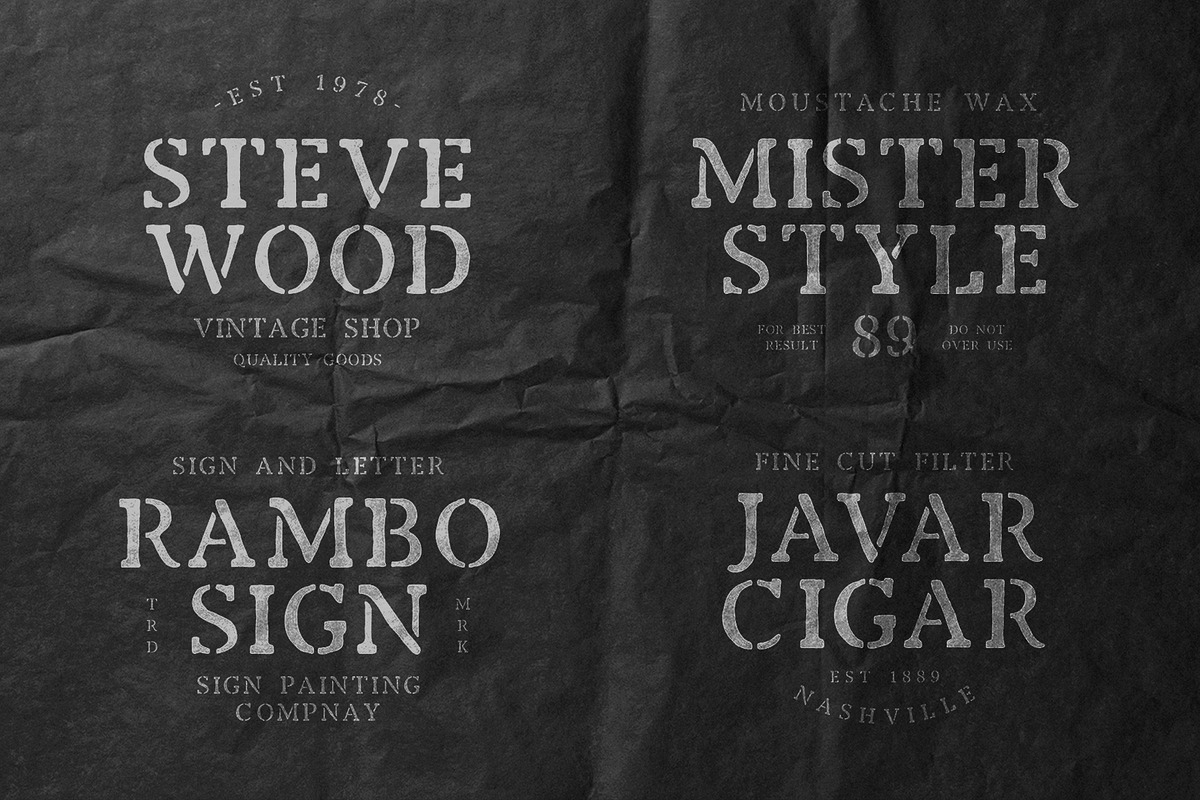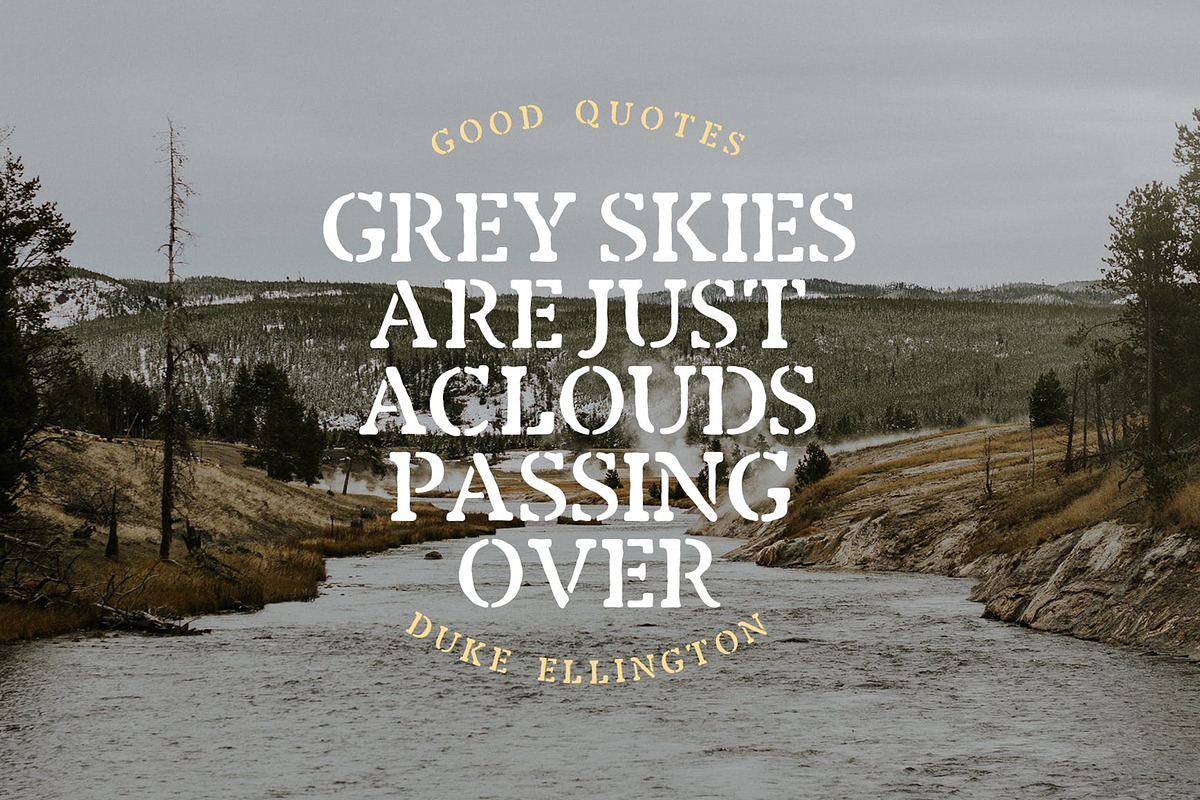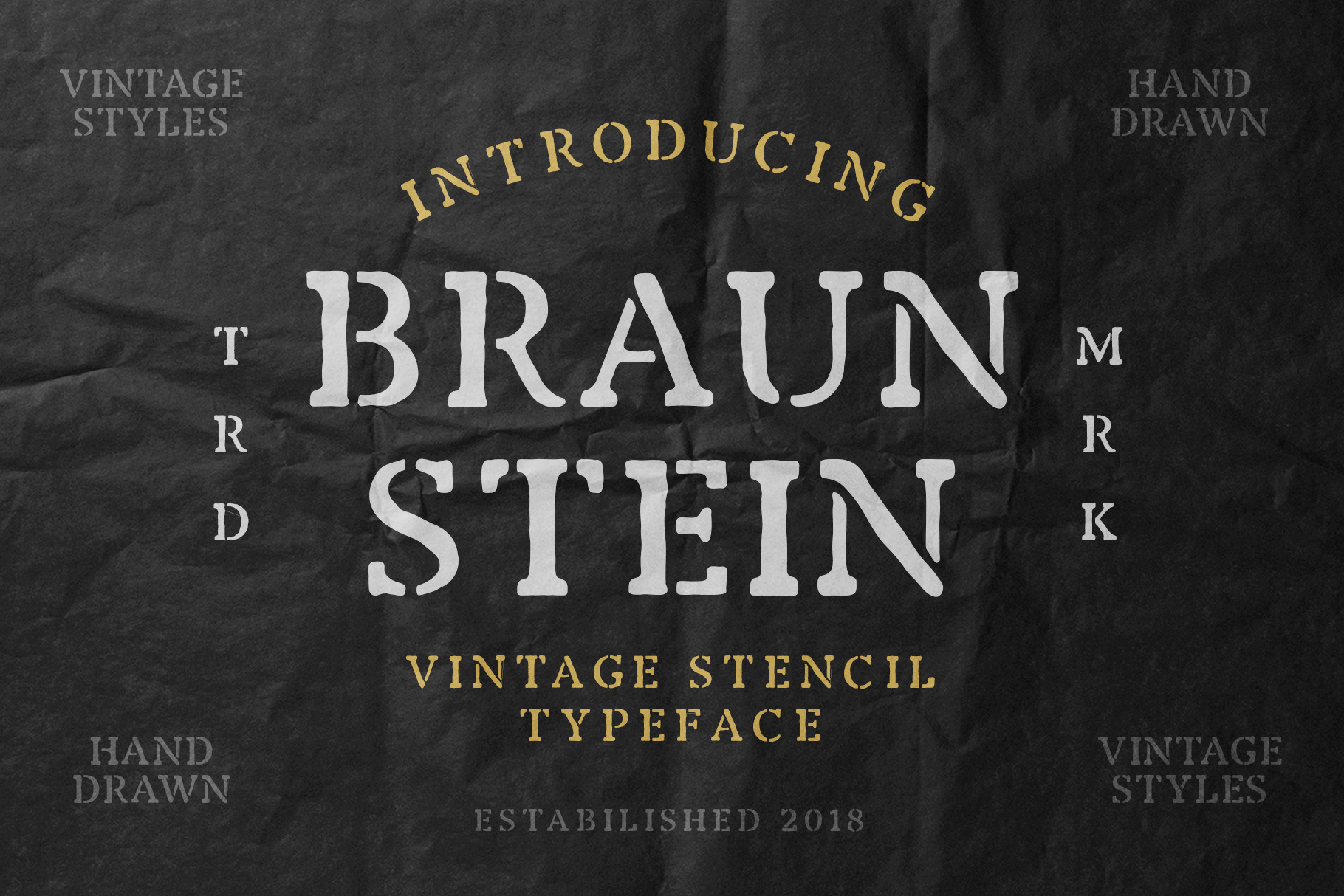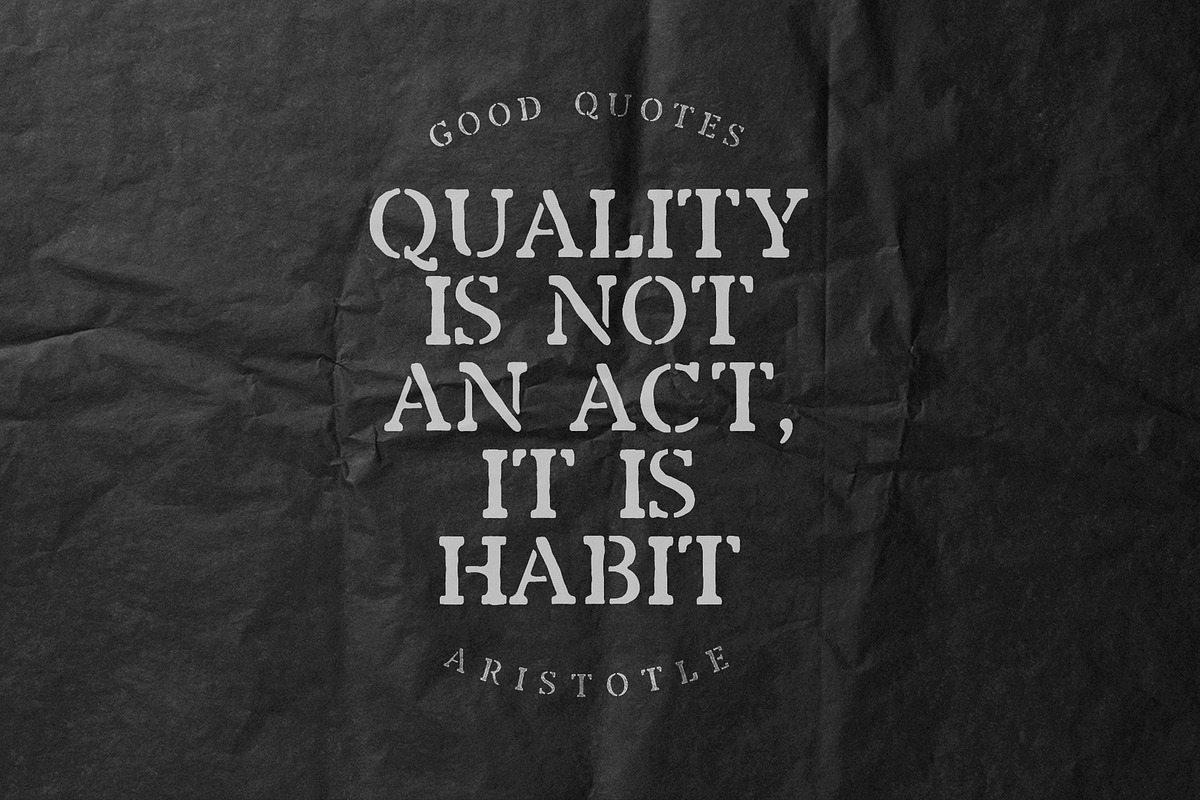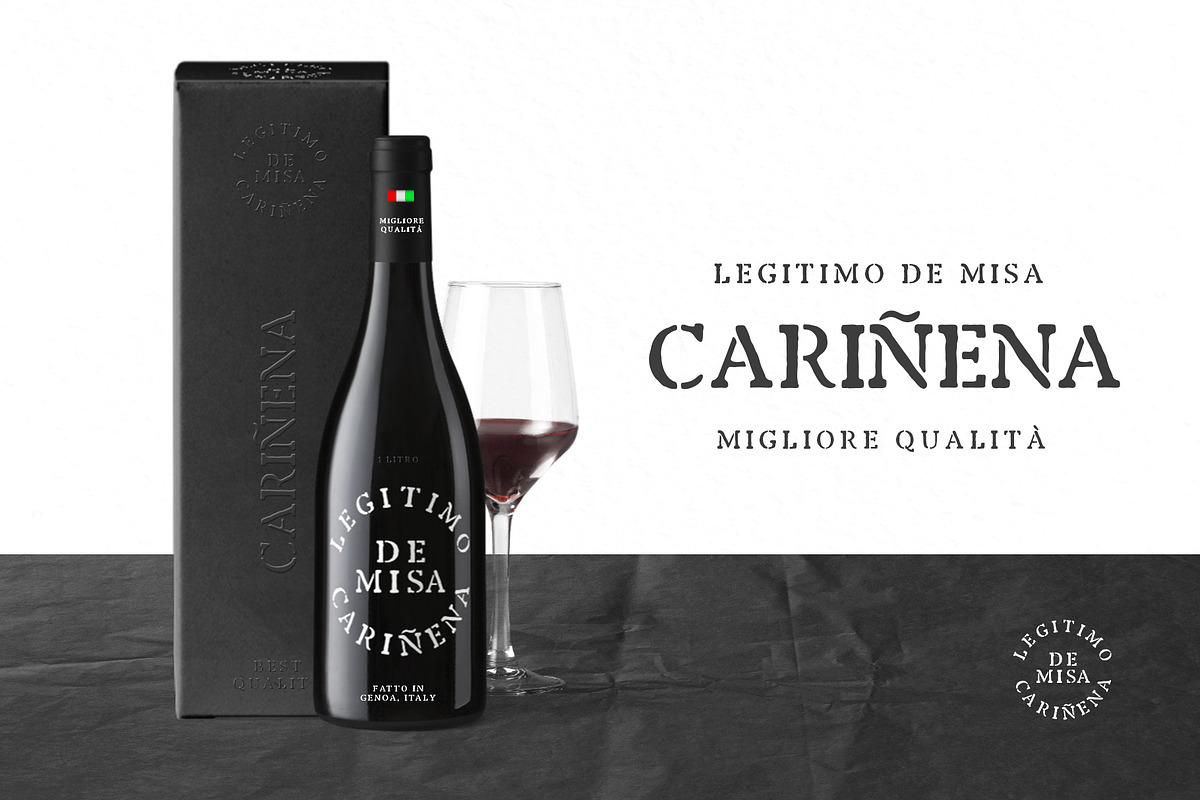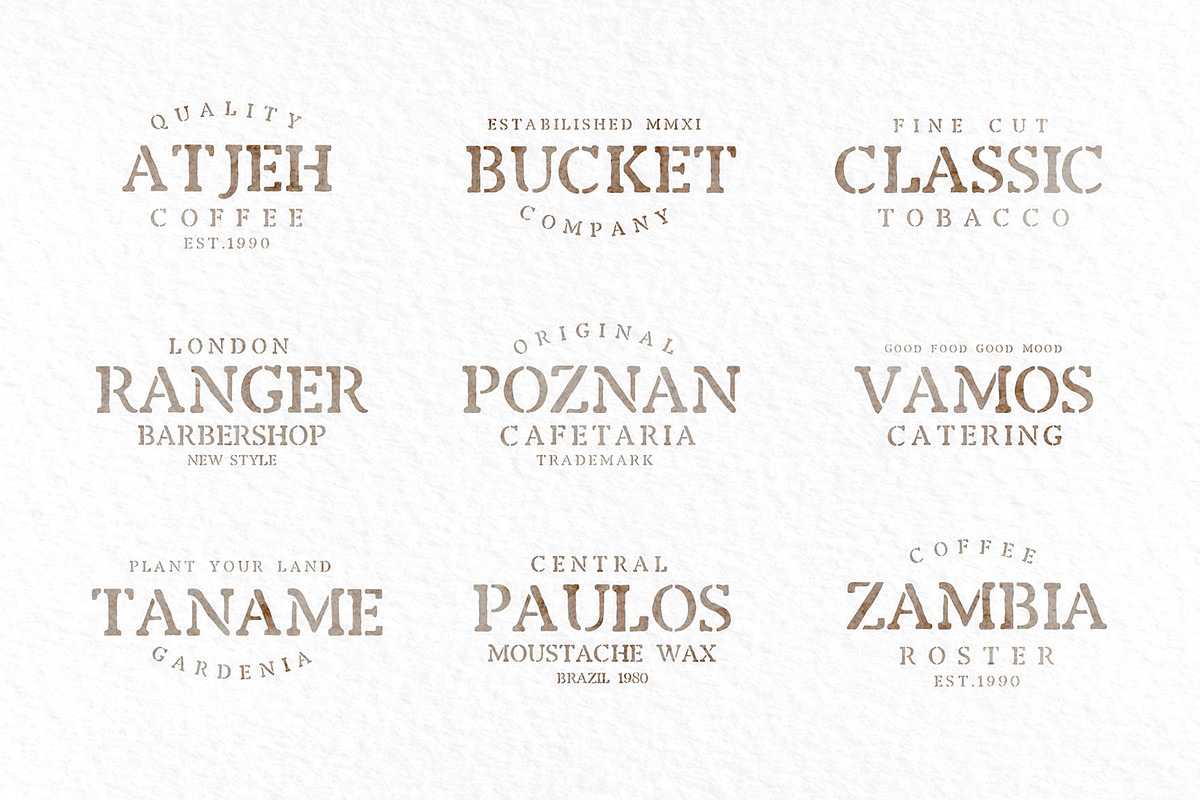
Braunstein Stencil Font
Braunstein is a classic stencil typeface with the old style, roughen, and handmade touch this typeface is a perfect choice for you to make vintage lettering and logotype quickly and easily.
This typeface is inspired by classic stencil type on the age of first Industrial revolution in 1820 that have strong styles and classy sing painting or mural for using on the project such as Logotype, Letterhead, Poster, Apparel Design, Label and etc.